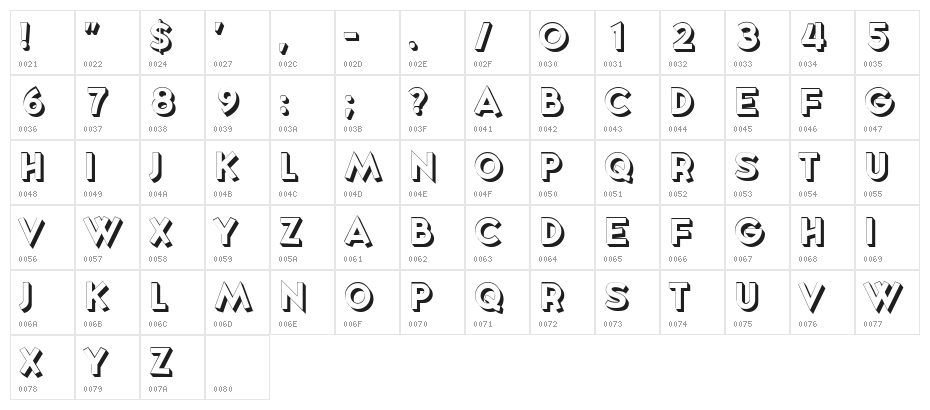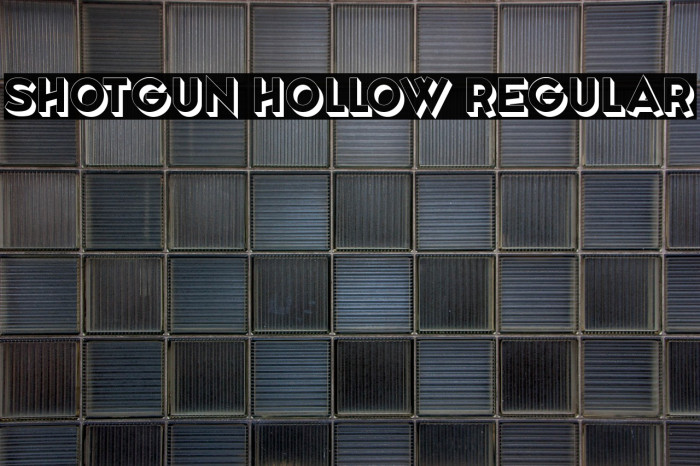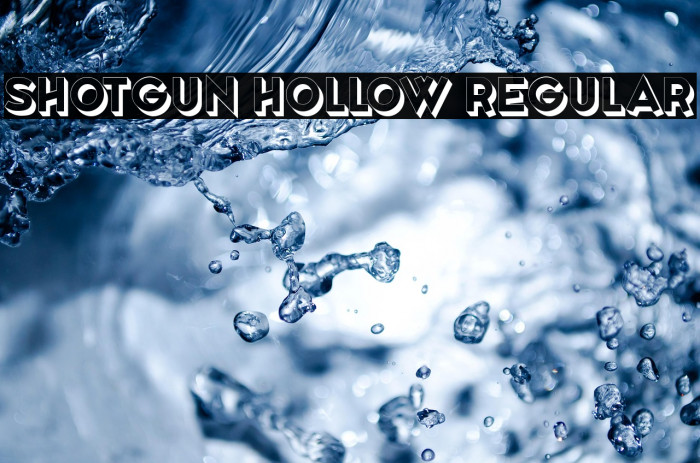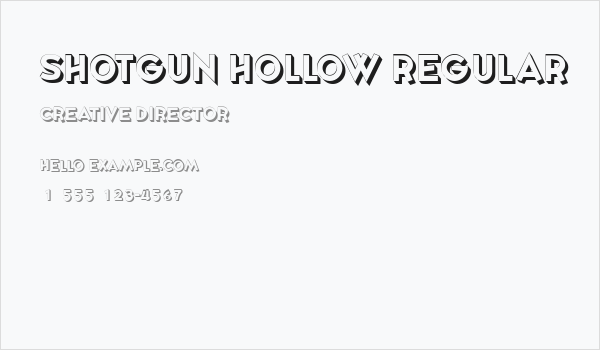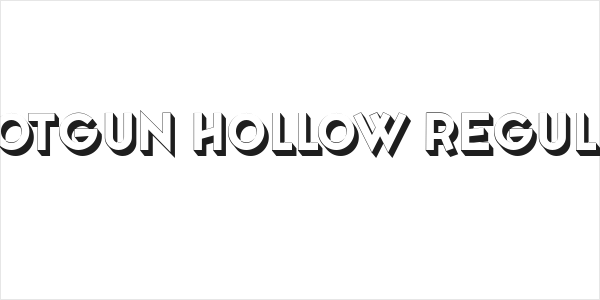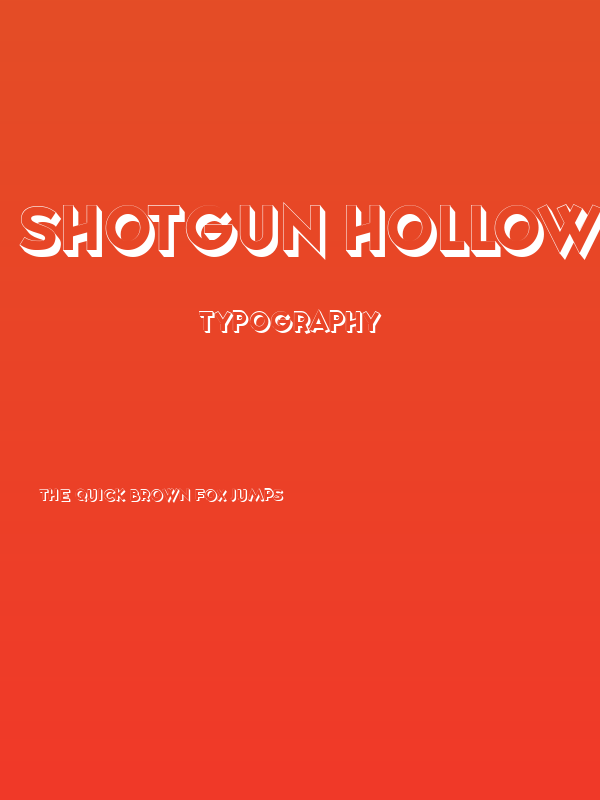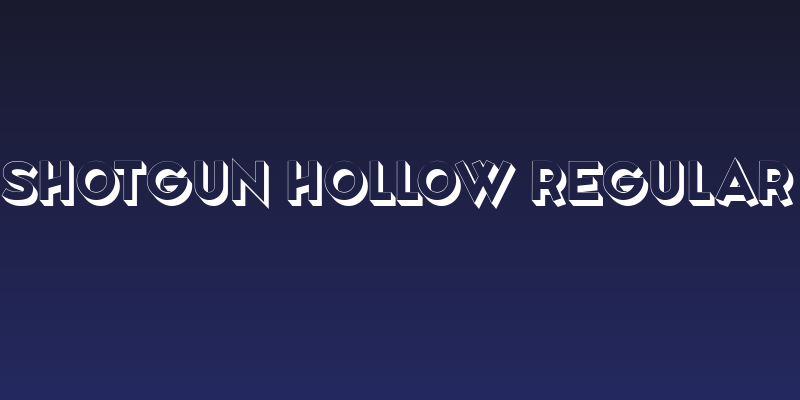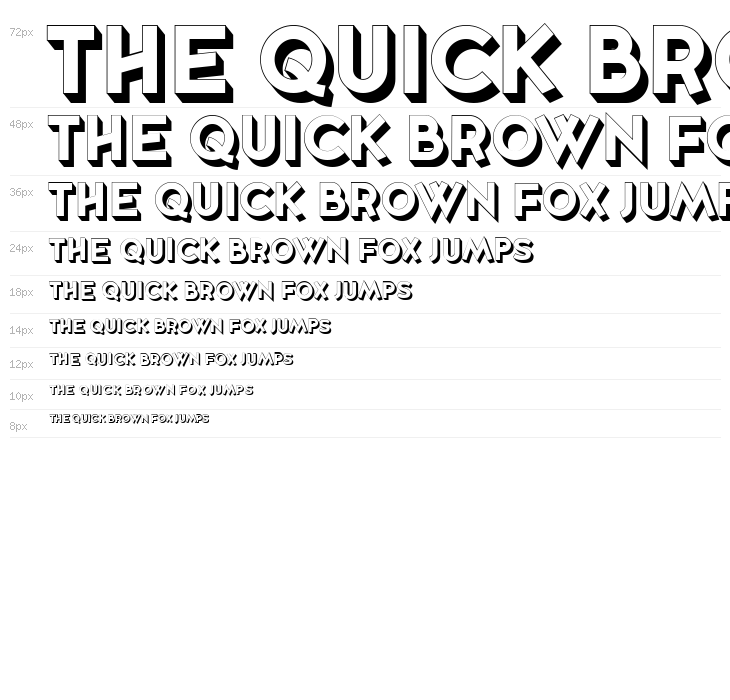
Shotgun Hollow Regular Font
Shotgun Hollow Regular Description
This font features a bold, three-dimensional appearance with a hollow center, giving it a striking and dynamic look. The letters are uppercase and have a strong geometric structure, with sharp angles and clean lines. The shadow effect adds depth, making the characters stand out prominently. The font is highly decorative, suitable for creating eye-catching headlines or logos. Its boldness and unique style make it ideal for projects that require a strong visual impact.
| Proposed Projects | Ideal for posters, logos, headlines, and any design needing a bold, eye-catching typeface. |